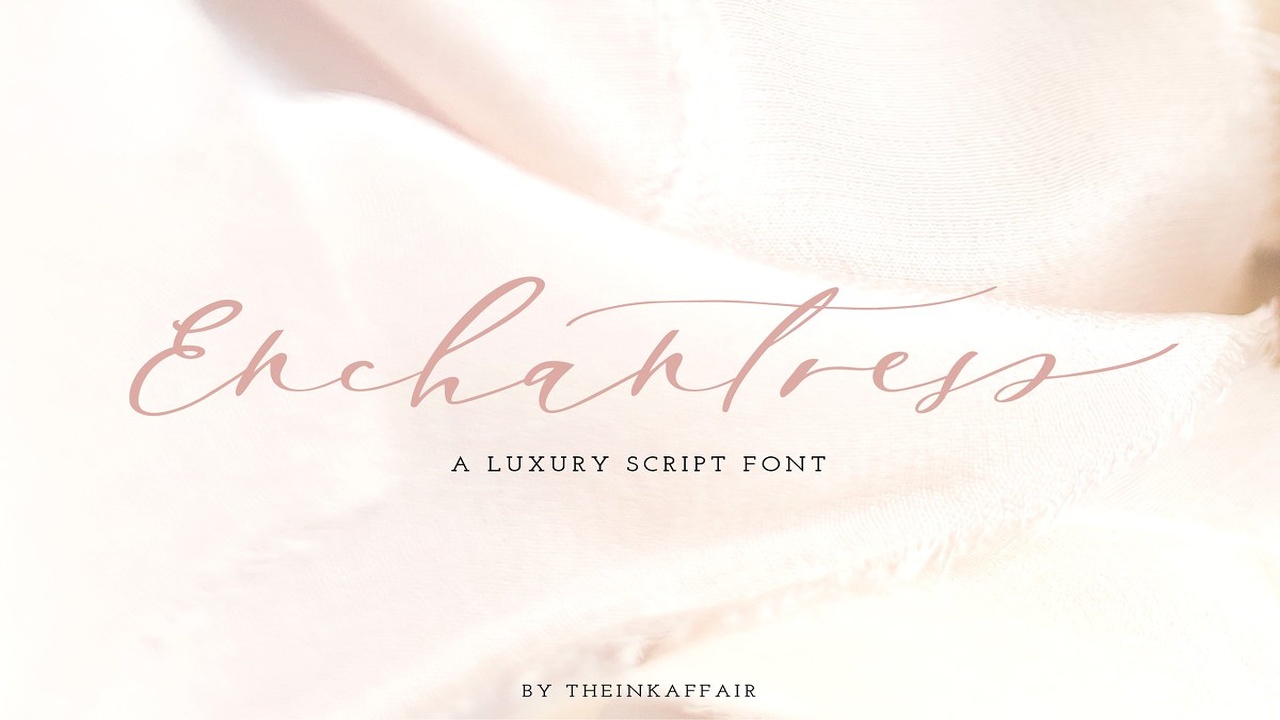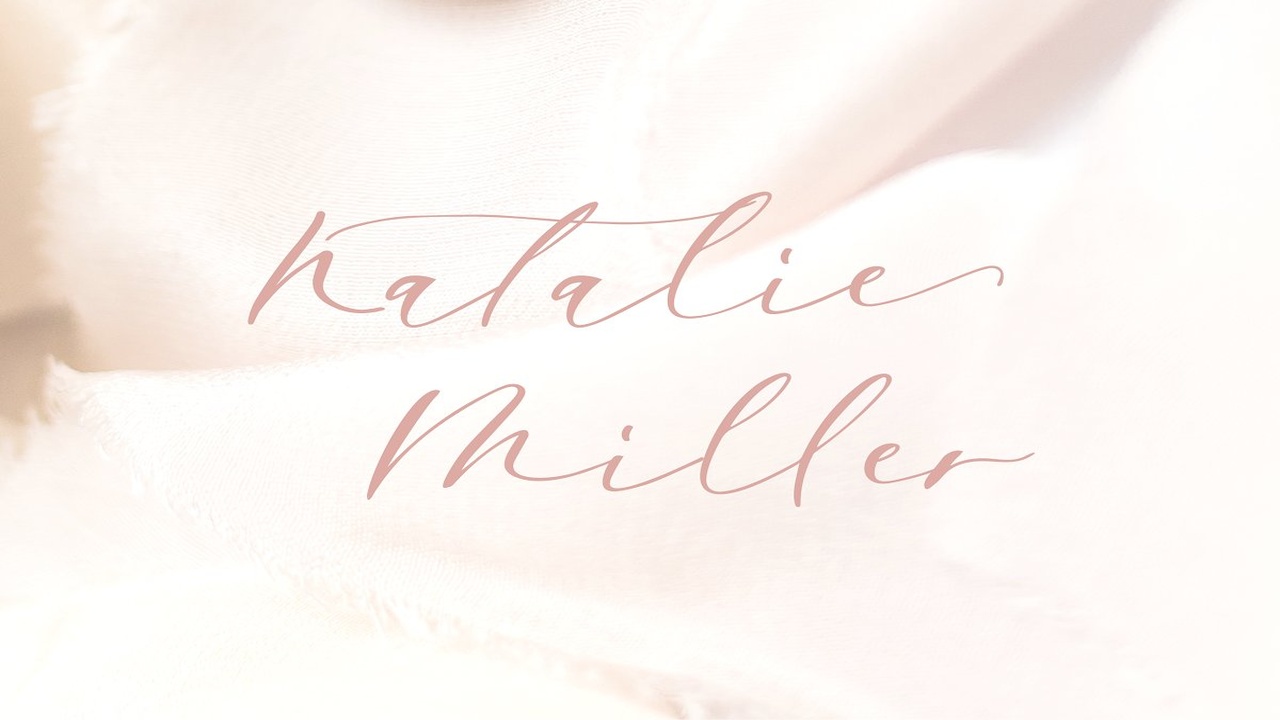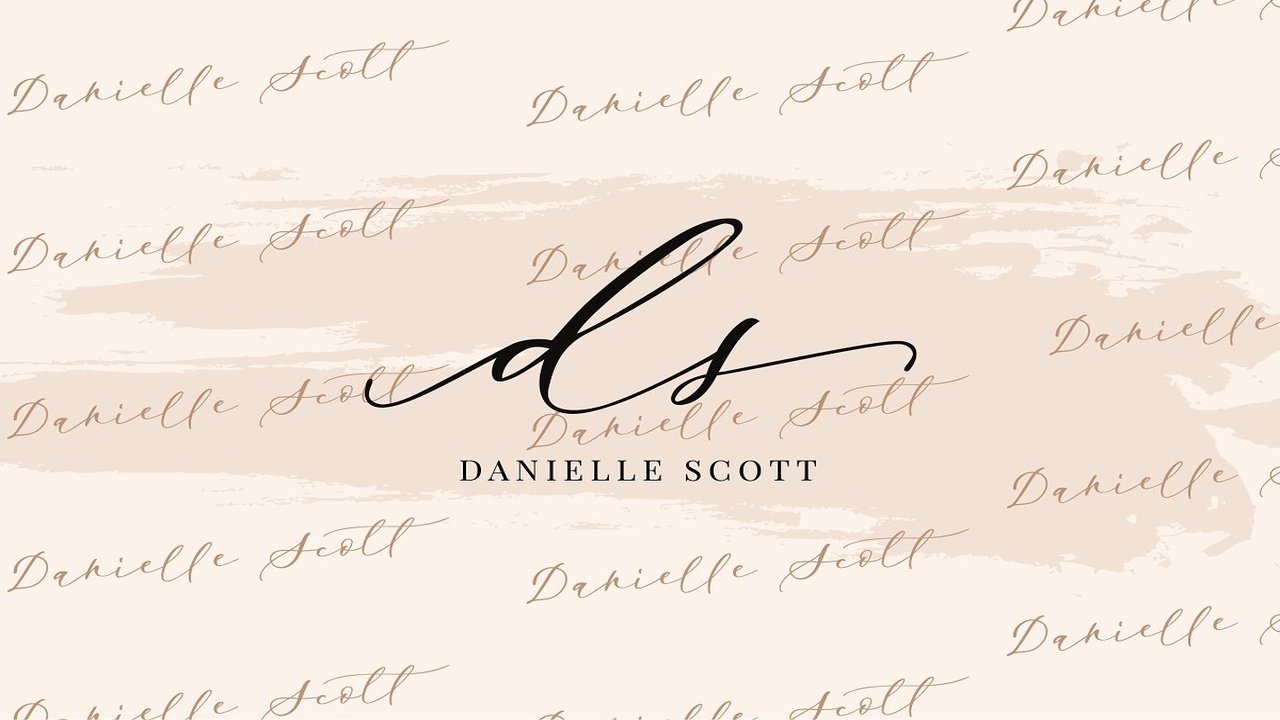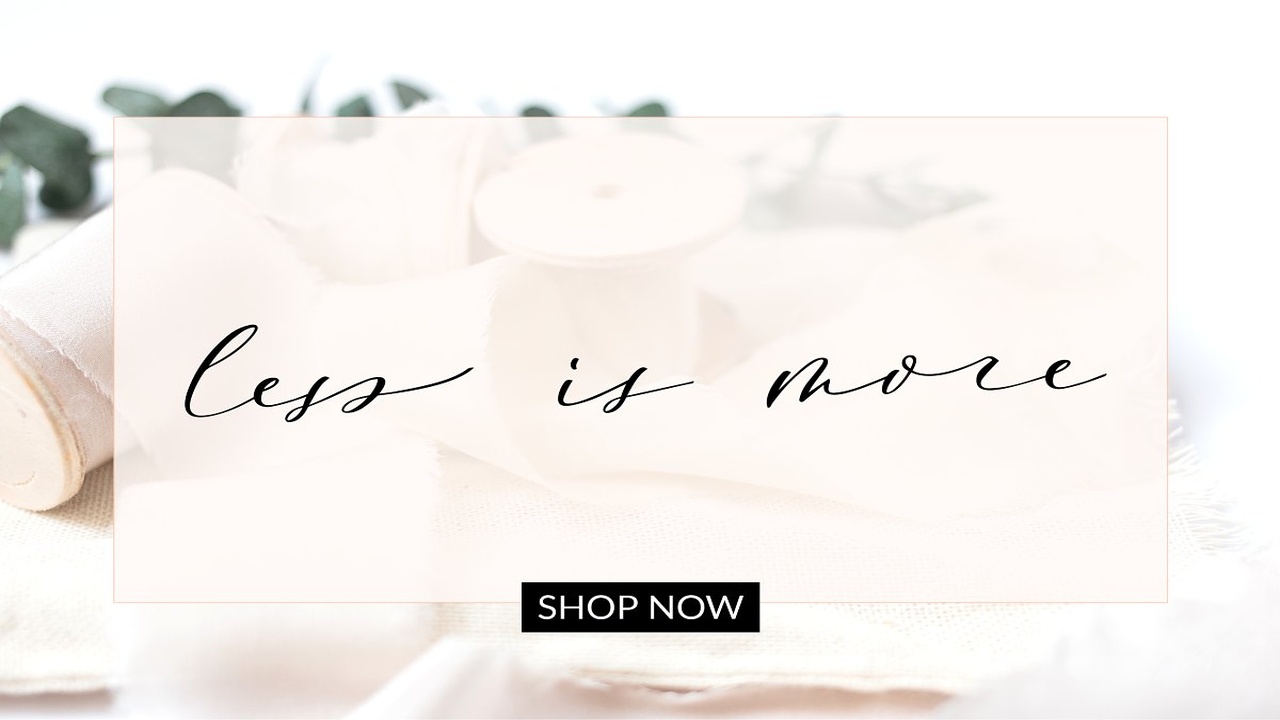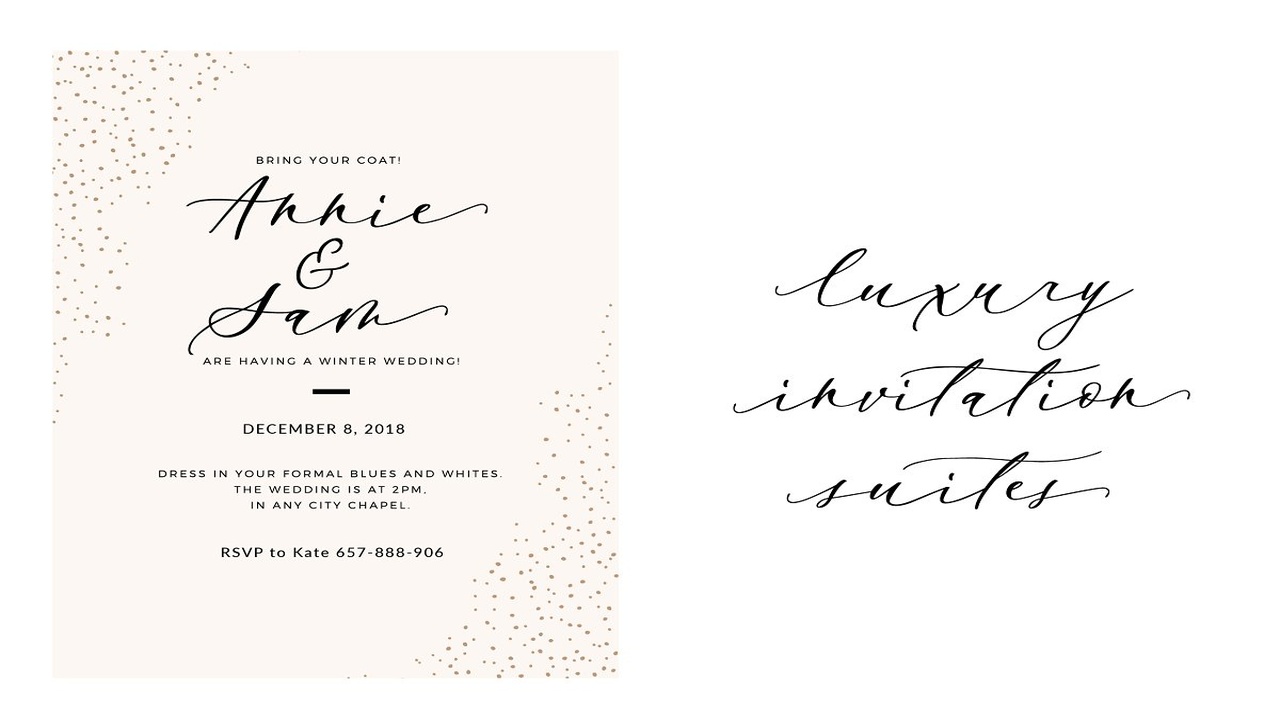
About the Enchantress Luxury Script Font
Note: This font is also available in a bundle here: https://crmrkt, com/Qy62Wp where you get 8 beautiful script font families for just $32!Introducing, Enchantress, a classy hand-lettered luxury script font, This calligraphy font is perfect for logos, branding, event invites, social media posts posts and so much more!Echantress includes a full set of gorgeous uppercase and lowercase letters, international support, numerals, punctuations and a range of ligatures to help you create realistic hand lettering